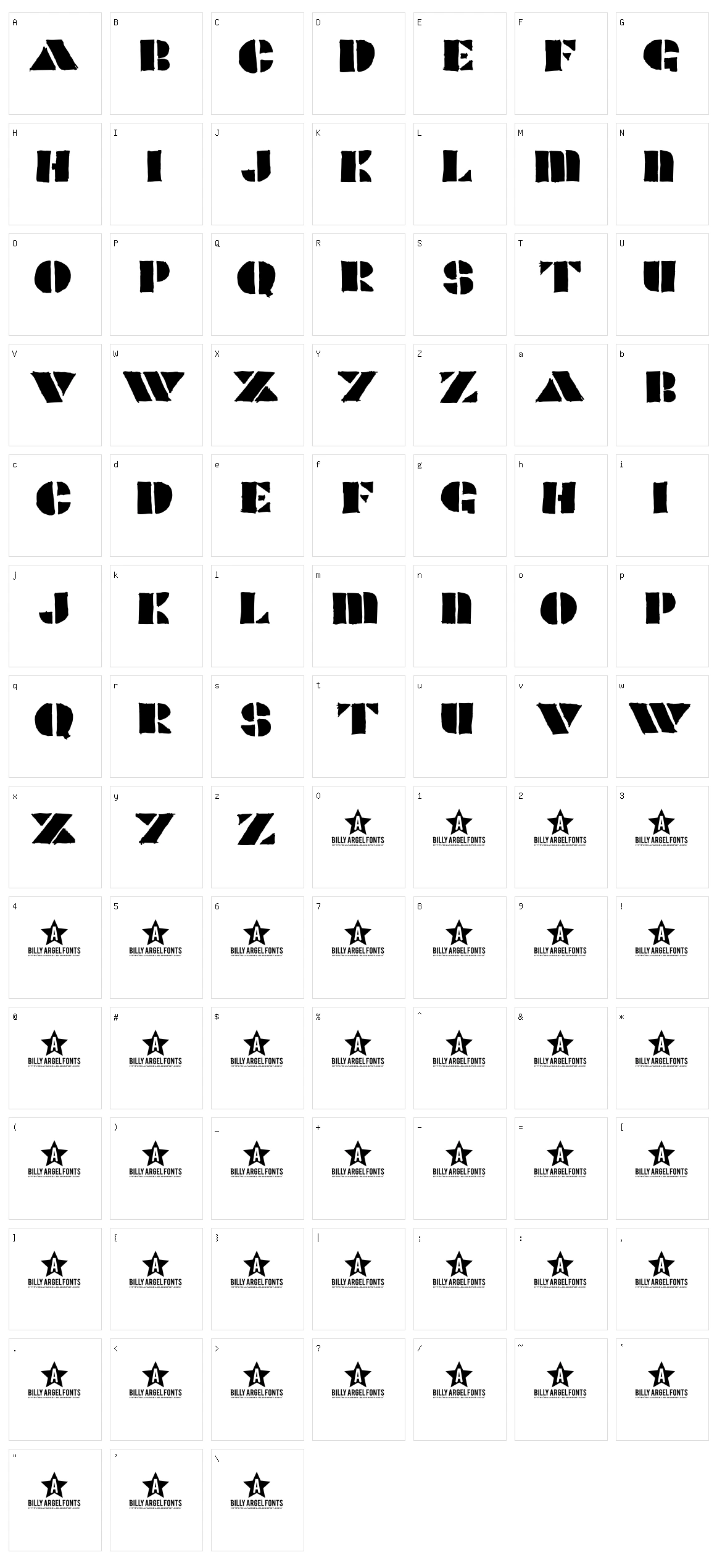
The free font Popcorn is carefully designed by Billy Argel Fonts ®, showcasing a thoughtful balance of creativity and usability and falls under the Eroded font style. When you download the ZIP file, it contains only 357.03 KB of font files, making it lightweight and quick to download. Please review the license details below to understand permitted usage and distribution rights. If license information is not available, we recommend using this font for personal projects only or contacting the author directly for commercial usage permissions.